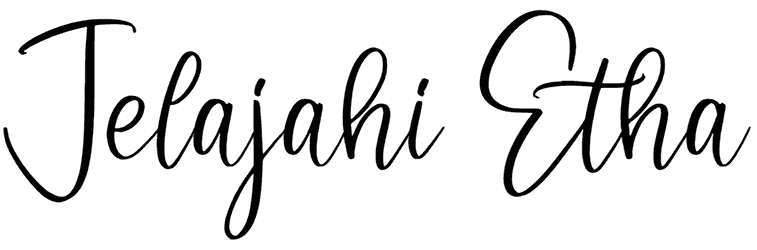
Jelajahi Etha Font
With a text that seems chic and luxurious, you can take your design out of its ordinary state and leave the best impression on your viewers. This invitation font, named Jelajahi Etha, has a nice and twisty style and shows a graceful mood. This handwritten font with A-Z characters can serve as an ideal choice for various projects, from business cards to Instagram posts.